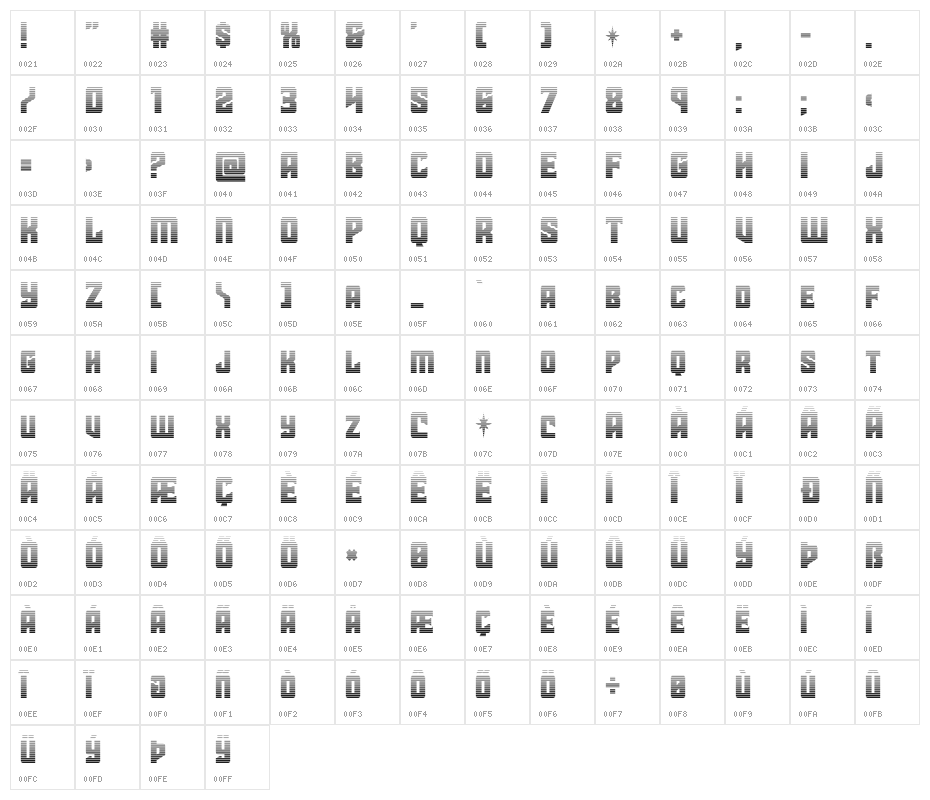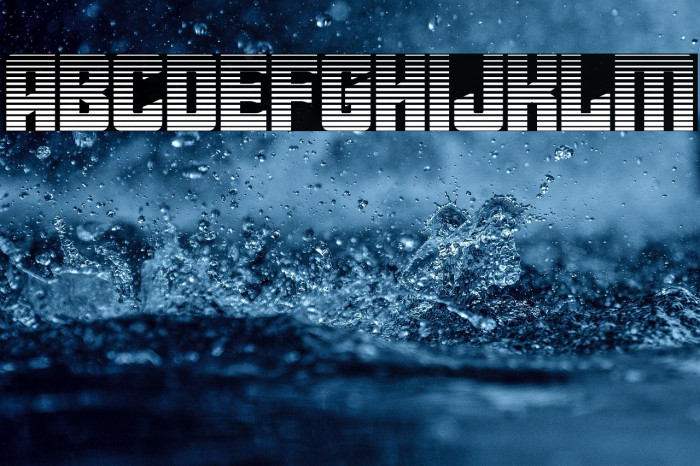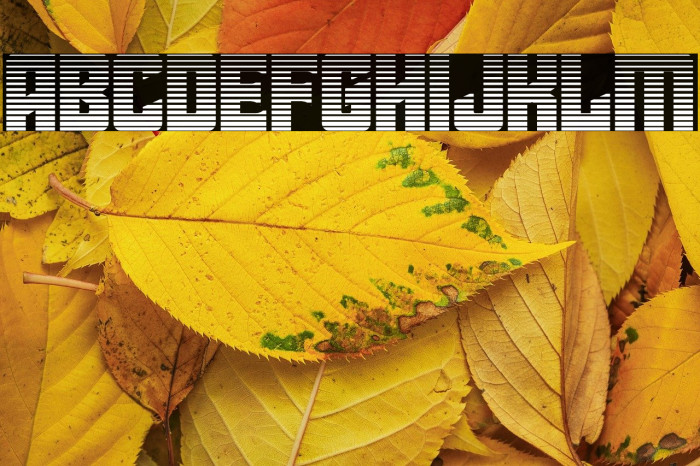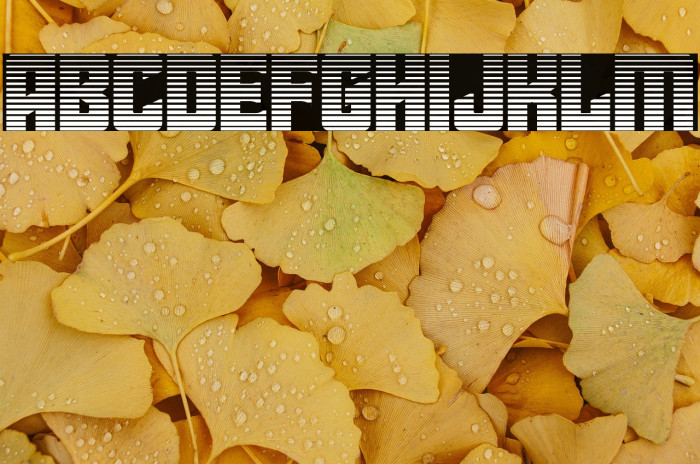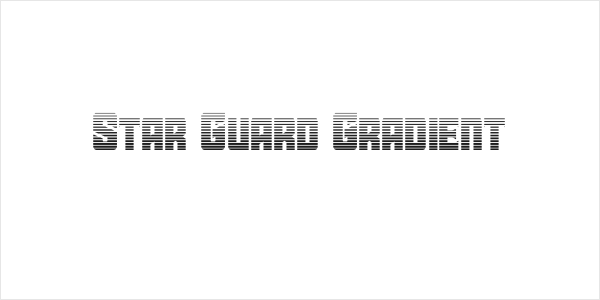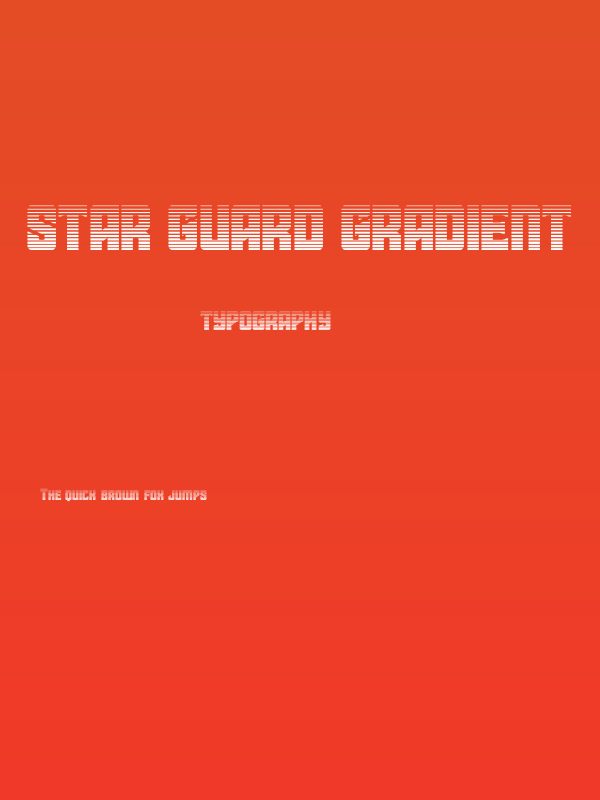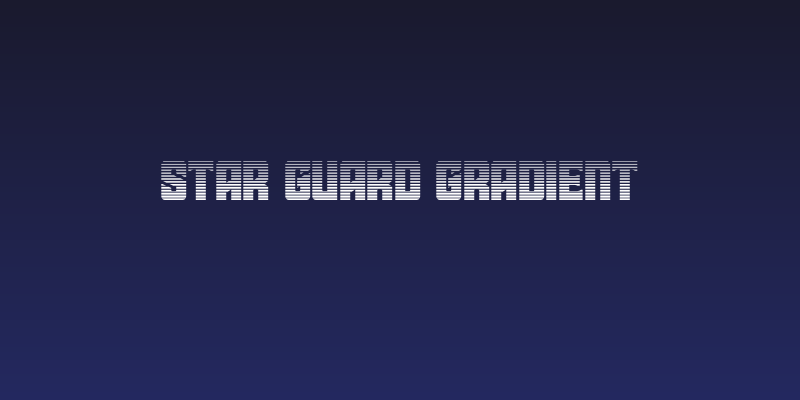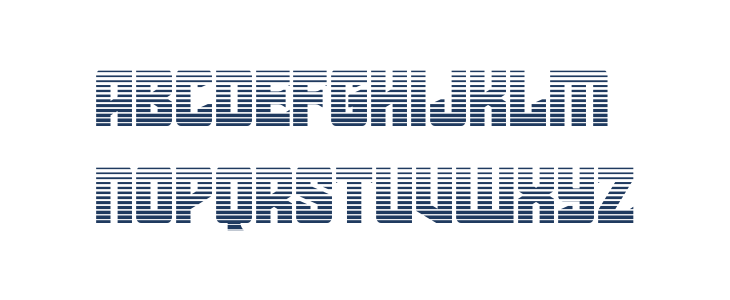
Star Guard Gradient Font
Star Guard Gradient Description
This font features a bold, futuristic design with a distinct horizontal line pattern running through each character, creating a gradient effect. The uppercase and lowercase letters maintain a consistent geometric structure, giving the font a cohesive and modern appearance. The numbers and special characters are designed to match the overall aesthetic, making the font suitable for a variety of digital and print applications. The unique style is eye-catching and ideal for projects that require a strong visual impact.
| Overall Style | Futuristic |
| Proposed Projects | Ideal for sci-fi themed posters, video game titles, tech branding, and futuristic event flyers. |